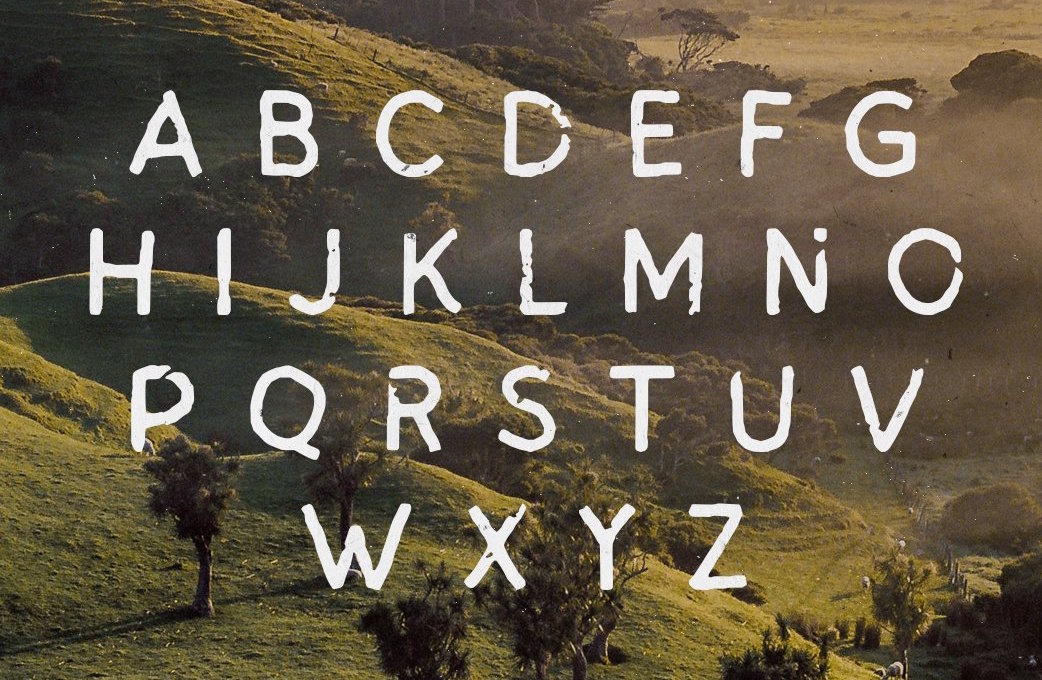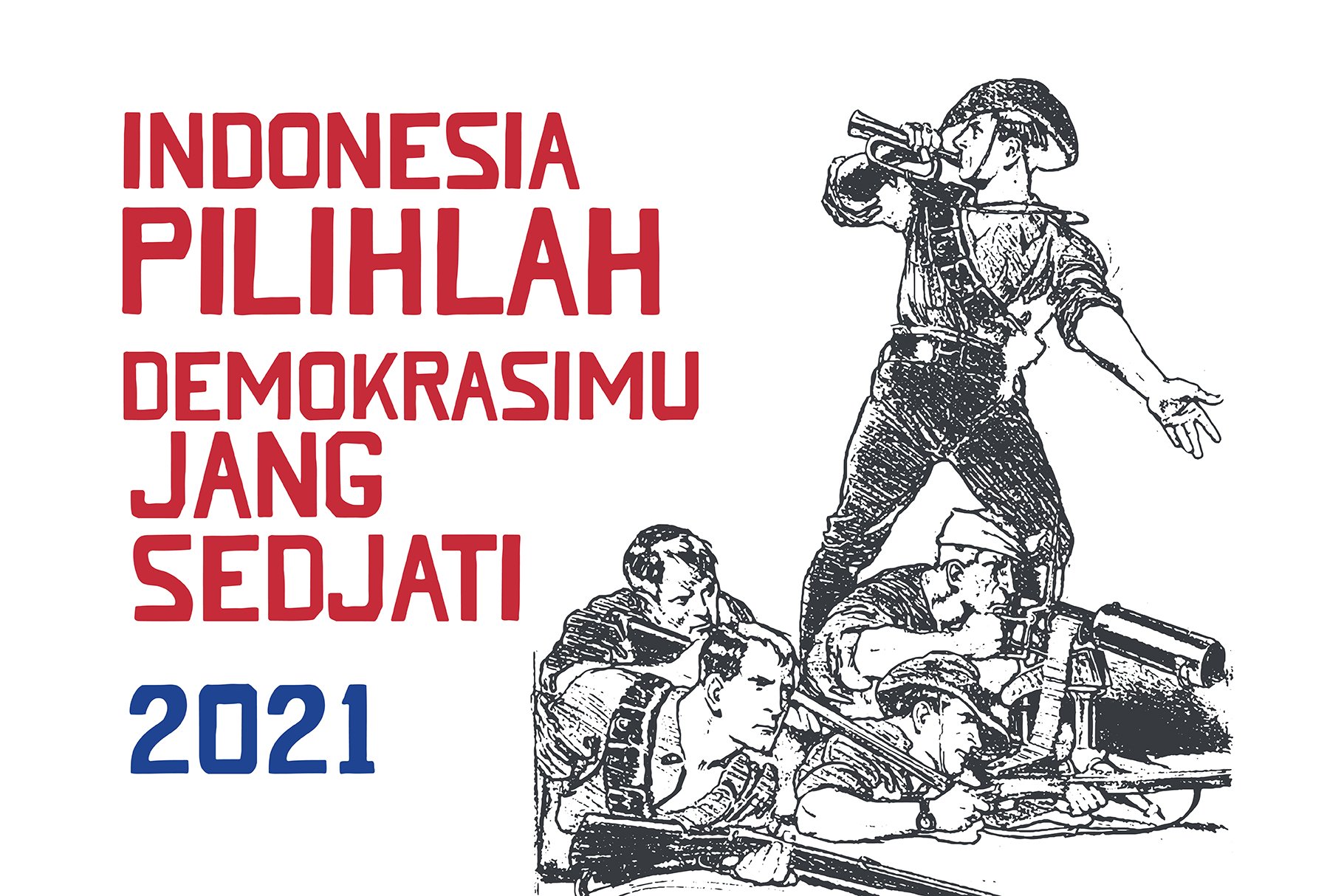
Megflags (was: HOUS Studio) [Fahrenno Asnawan]
Vintage badge designer in Yogyakarta, Indonesia, who created the weathered vintage all caps typefaxe Suhanto in 2019. By 2020, his (mostly vintage) typefaces included: Caslar, Eastwood, Giyo, Jelaga, Kisna, Kisna Stamp, Mardie, Mondrogoeno, Narto, Salam97 Stencil, Soerip, Soul Wanders, Suhanto, Vacant.
Typefaces from 2021: Wellmons (a rounded hand-drawn blackletter), Sigher, Grissed (free, vintage), Elthon (sketched), Sirie, Kranon (vintage metal sign emulation), Soerip, Tudjuh Dua (vernacular, all caps), Balero (+Stencil).